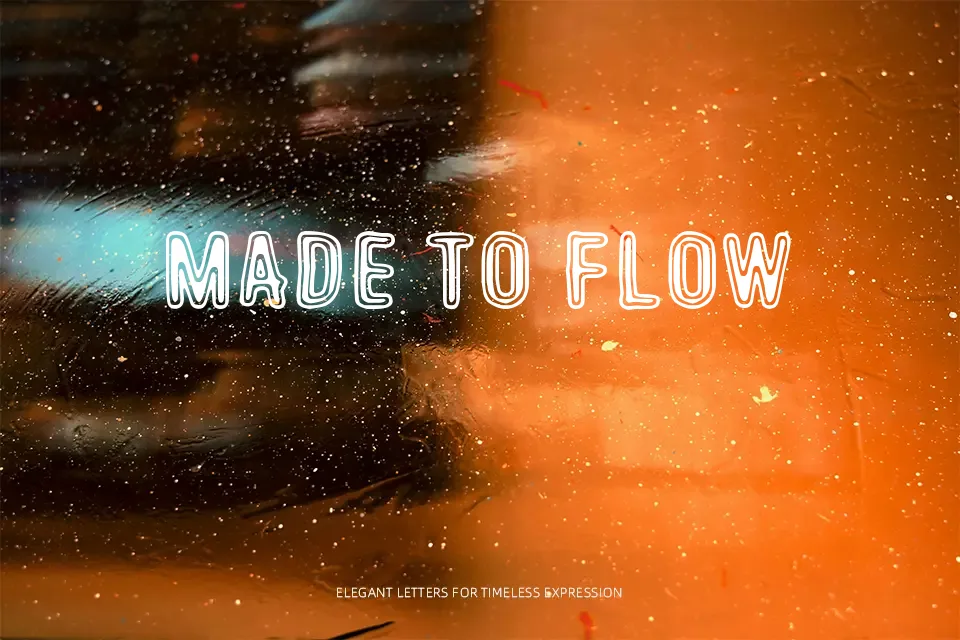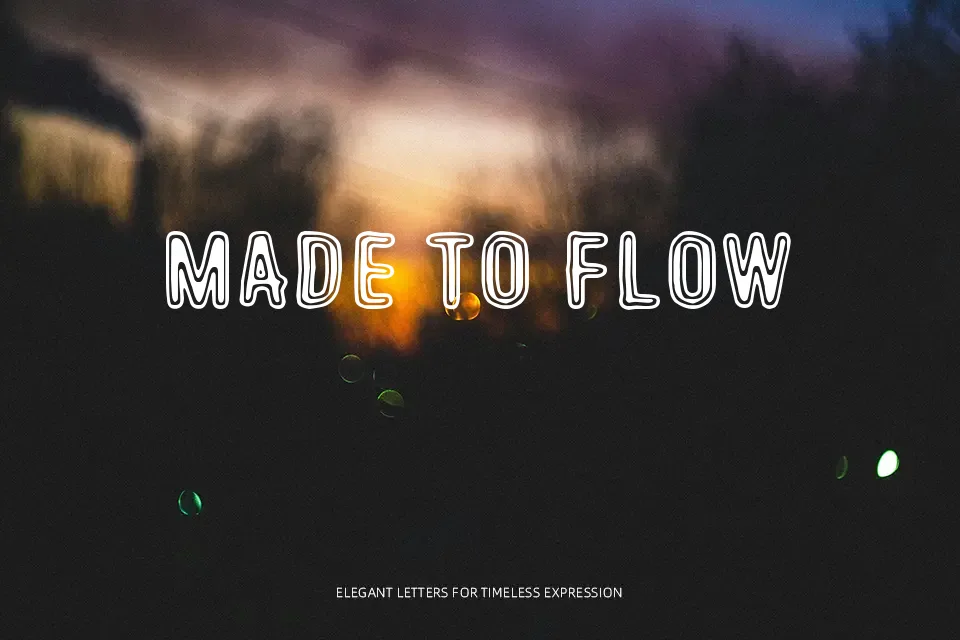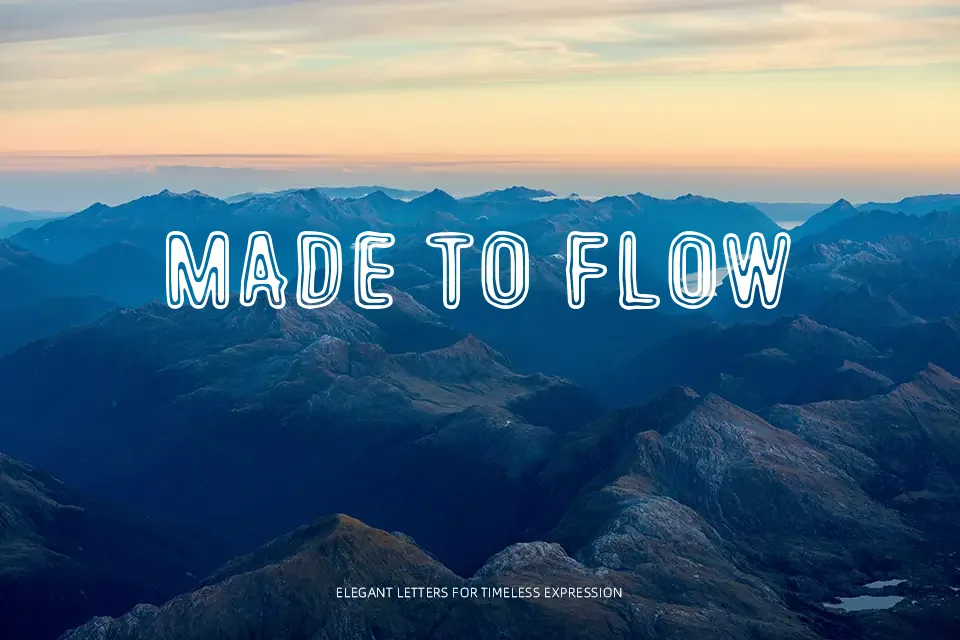
Beyond These Things Font
Designed by Juha Korhonen
The letterforms in Beyond These Things carry a loose, pen-on-paper quality — slightly uneven in baseline and varying in stroke weight in a way that reads as deliberately organic rather than polished. It sits comfortably in the casual handwritten script category, with open counters and natural ink-flow spacing that suits short display text. For quote overlays, journal cover headers, or handmade-style packaging labels, it delivers without overdesigning. That said, the irregular letterforms make it a poor choice for body copy or any context requiring legibility at small sizes. Legibility drops sharply below 18pt, and the style may feel too informal for anything branded as premium or corporate.
– Inspirational quote graphics on social media
– Greeting card and invitation headers
– Lifestyle blog post title treatments
– DIY or handmade brand label designs
– Small-print body text or long-form reading
– Corporate identity and formal business materials
– Digital UI labels or navigation elements
– Contexts requiring precise letter uniformity
Perfect for branding, holiday, and invitation, with a creative and handwritten style.